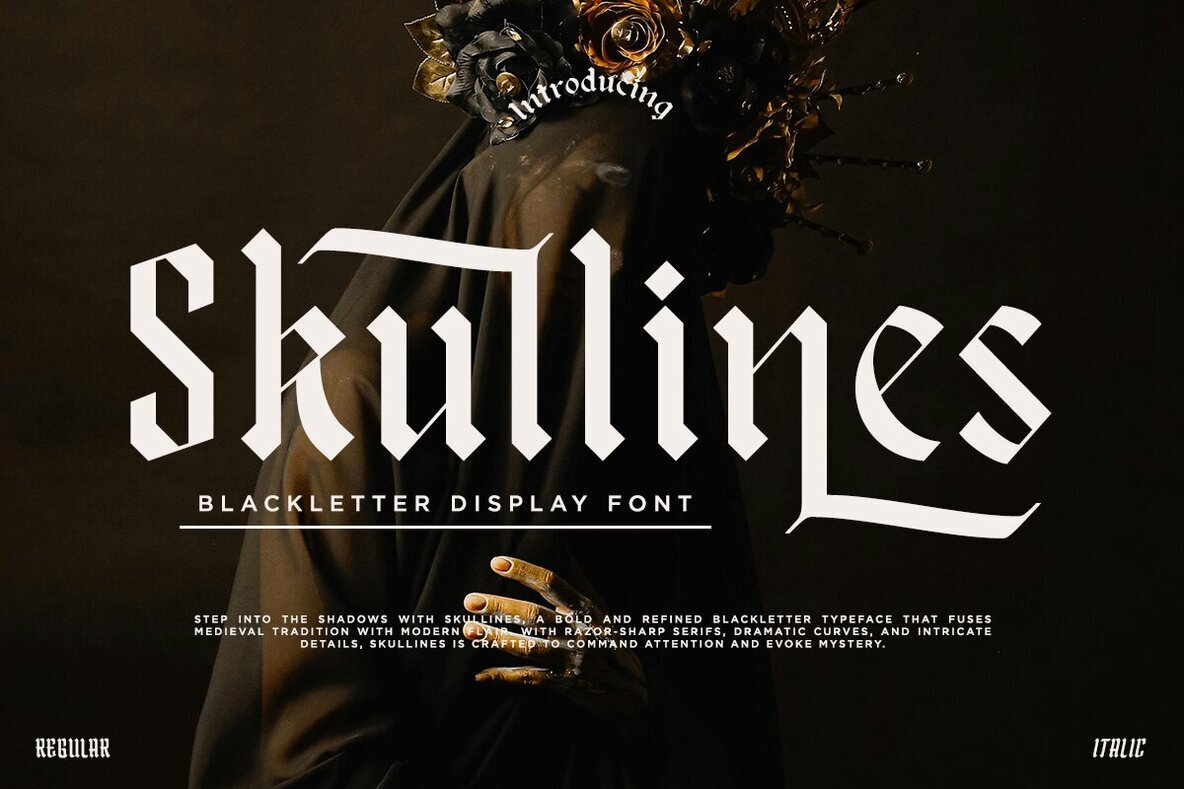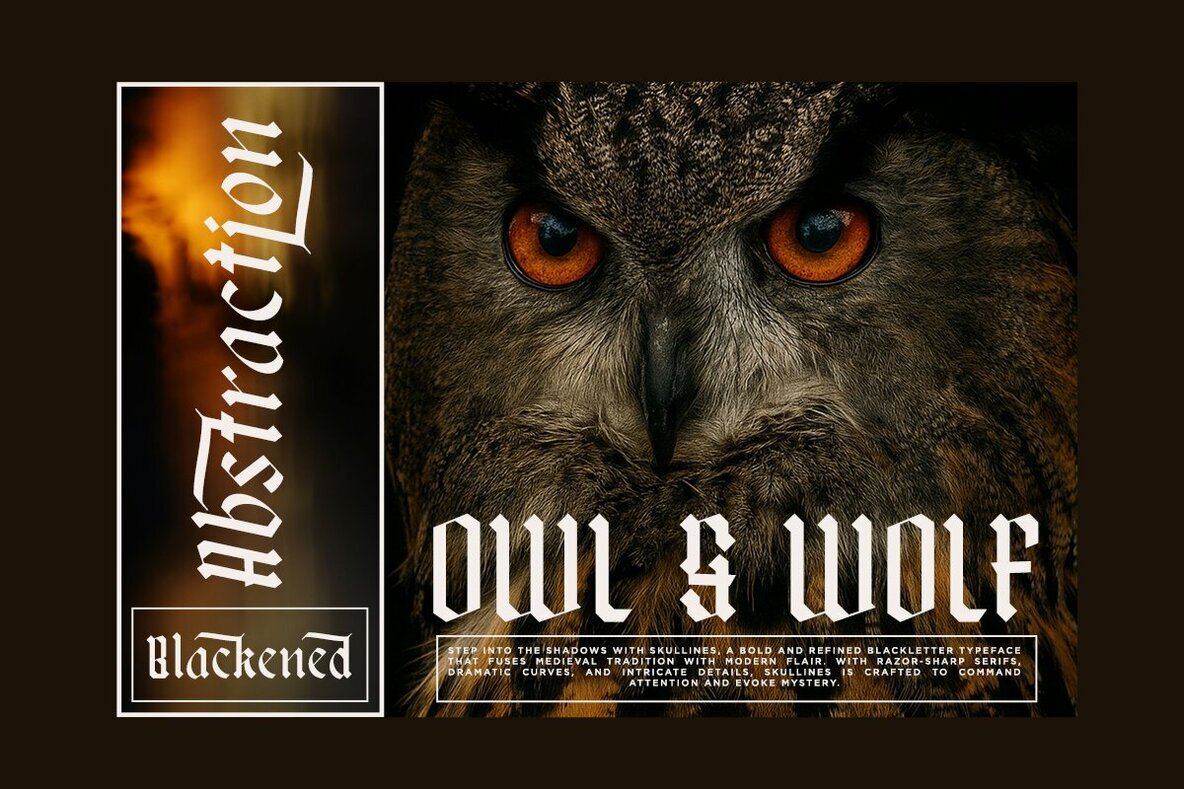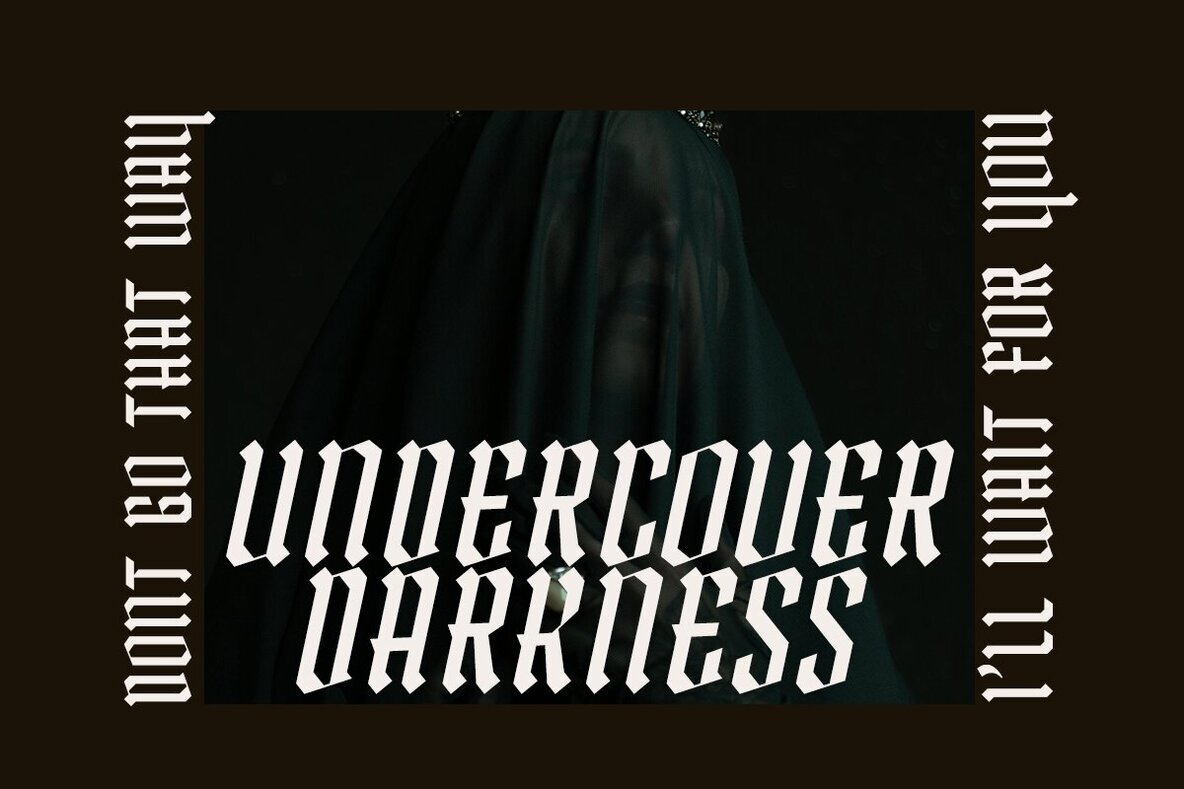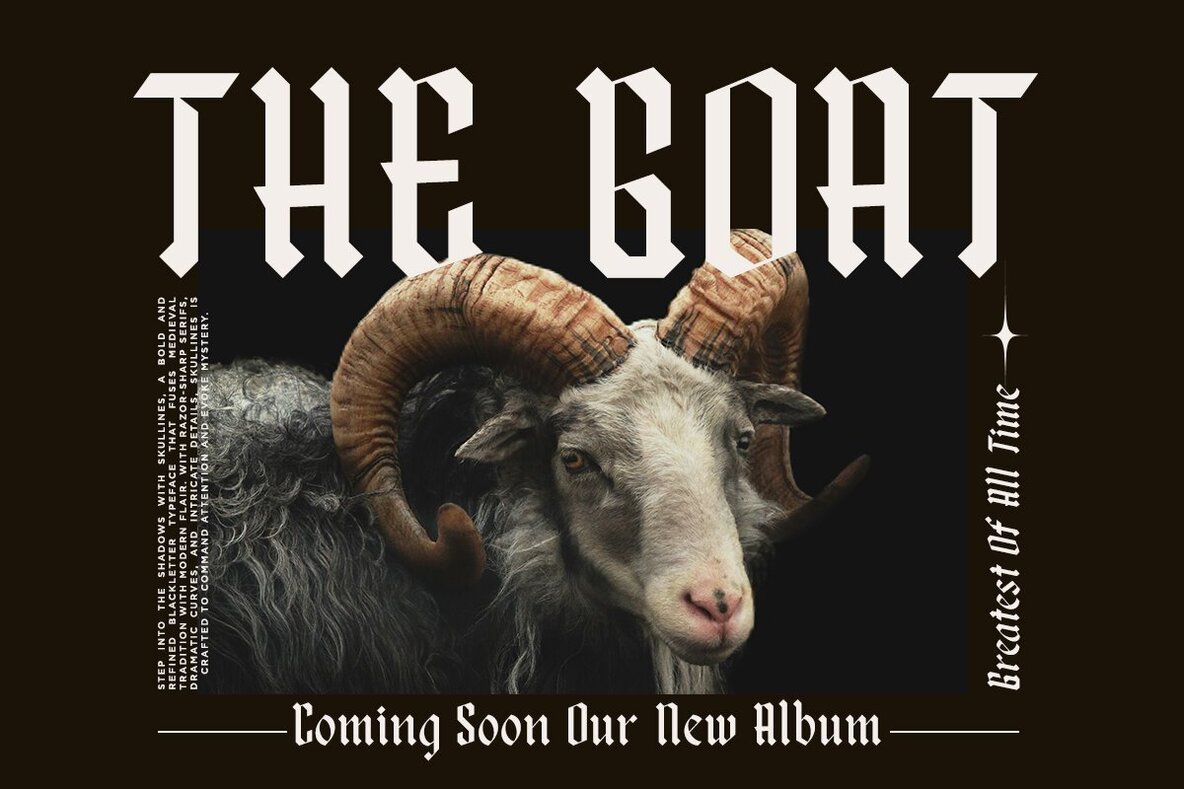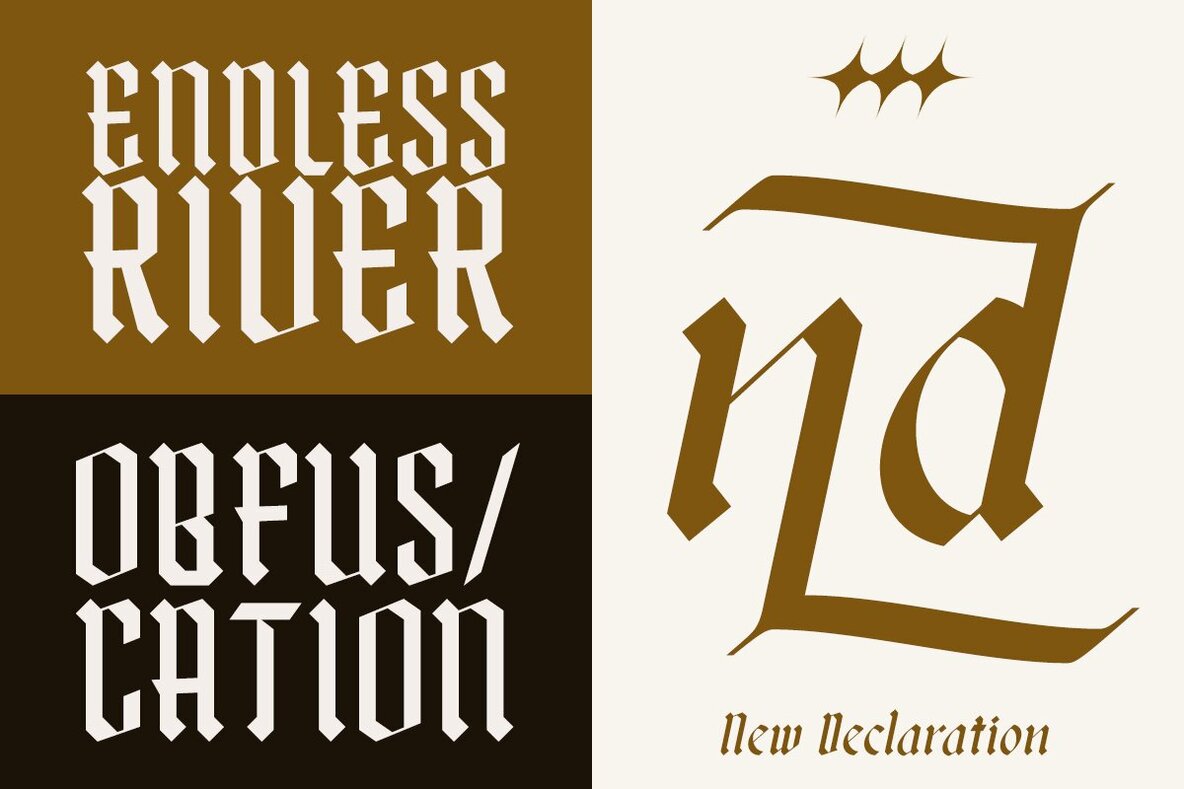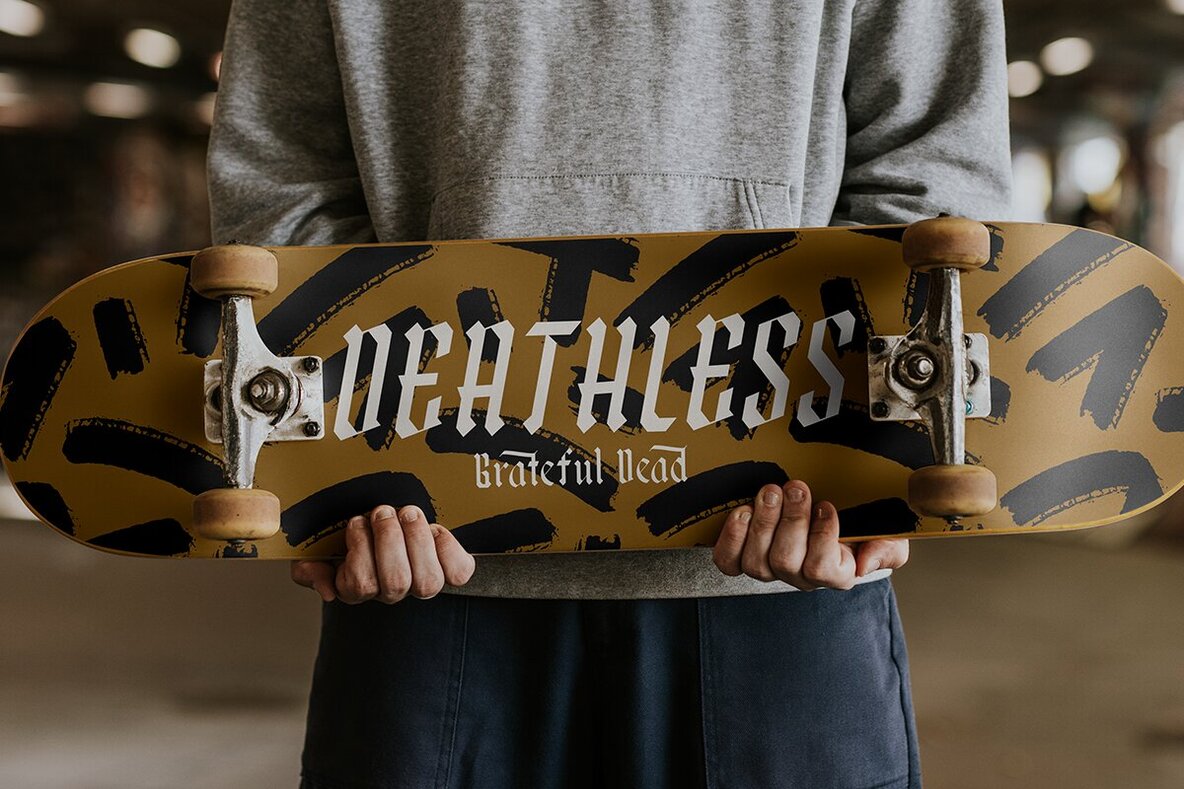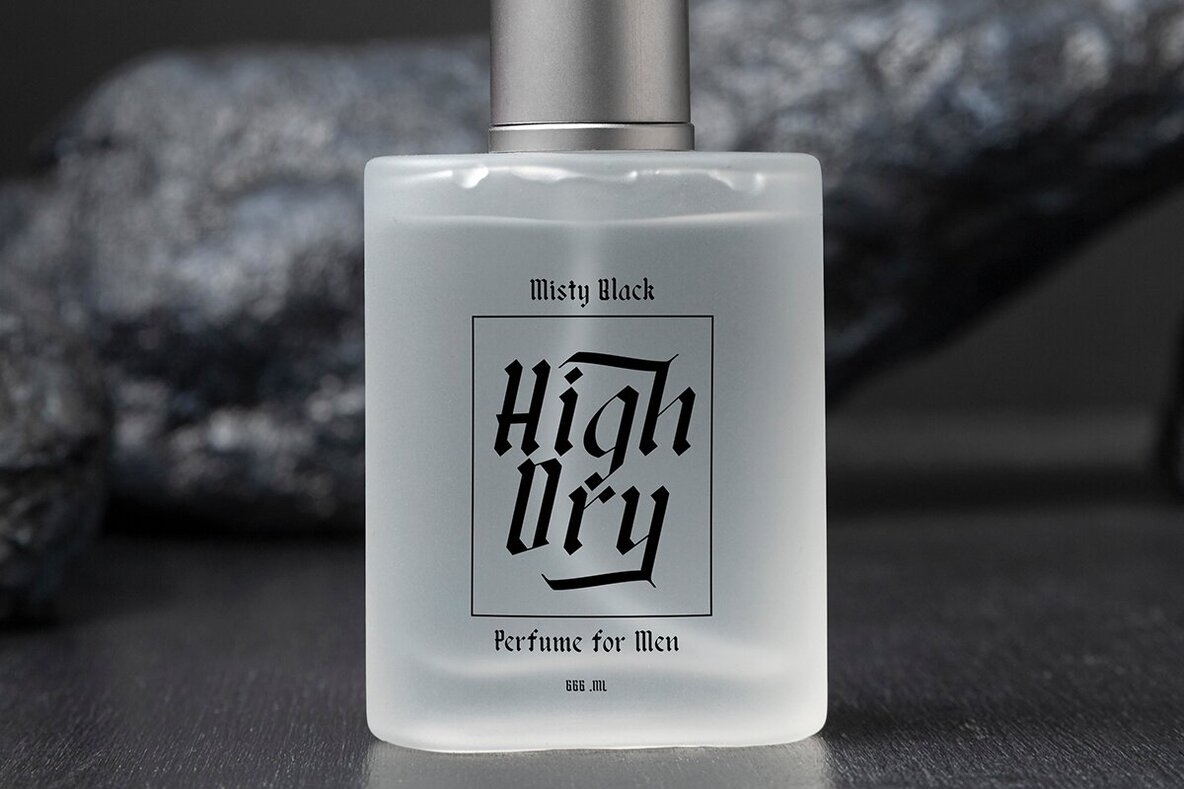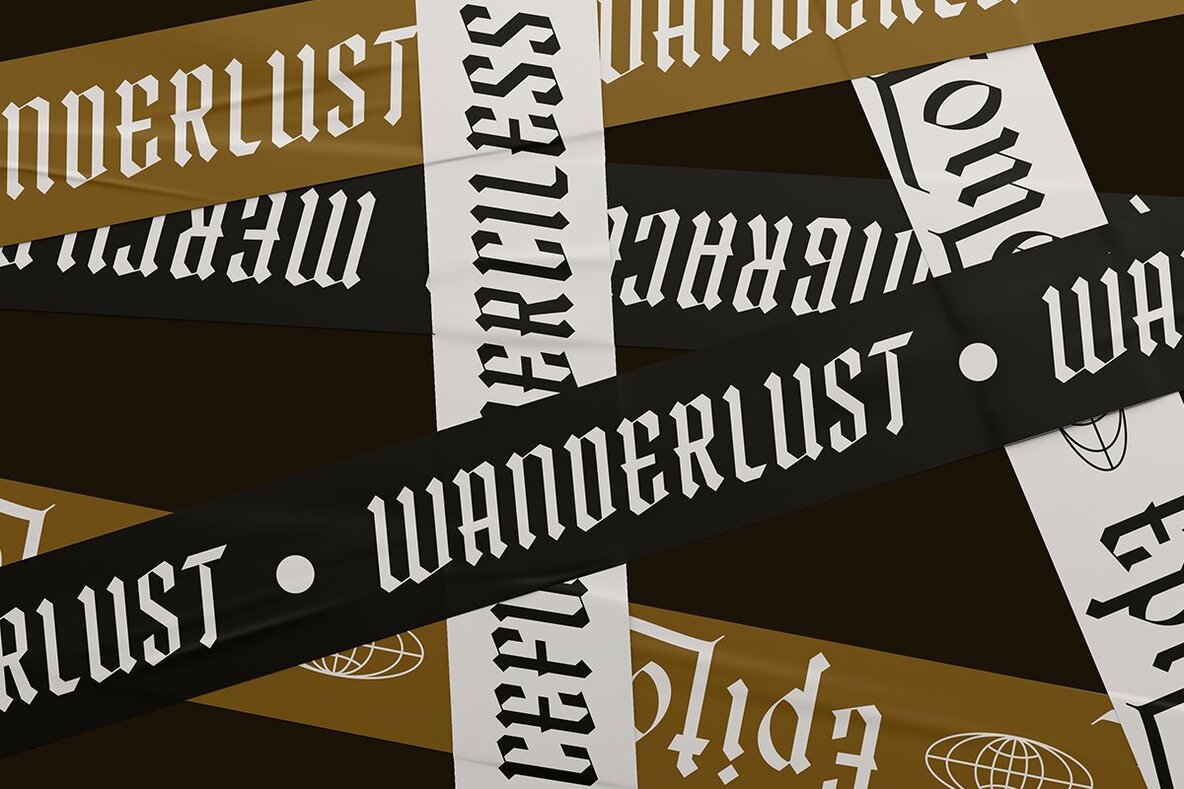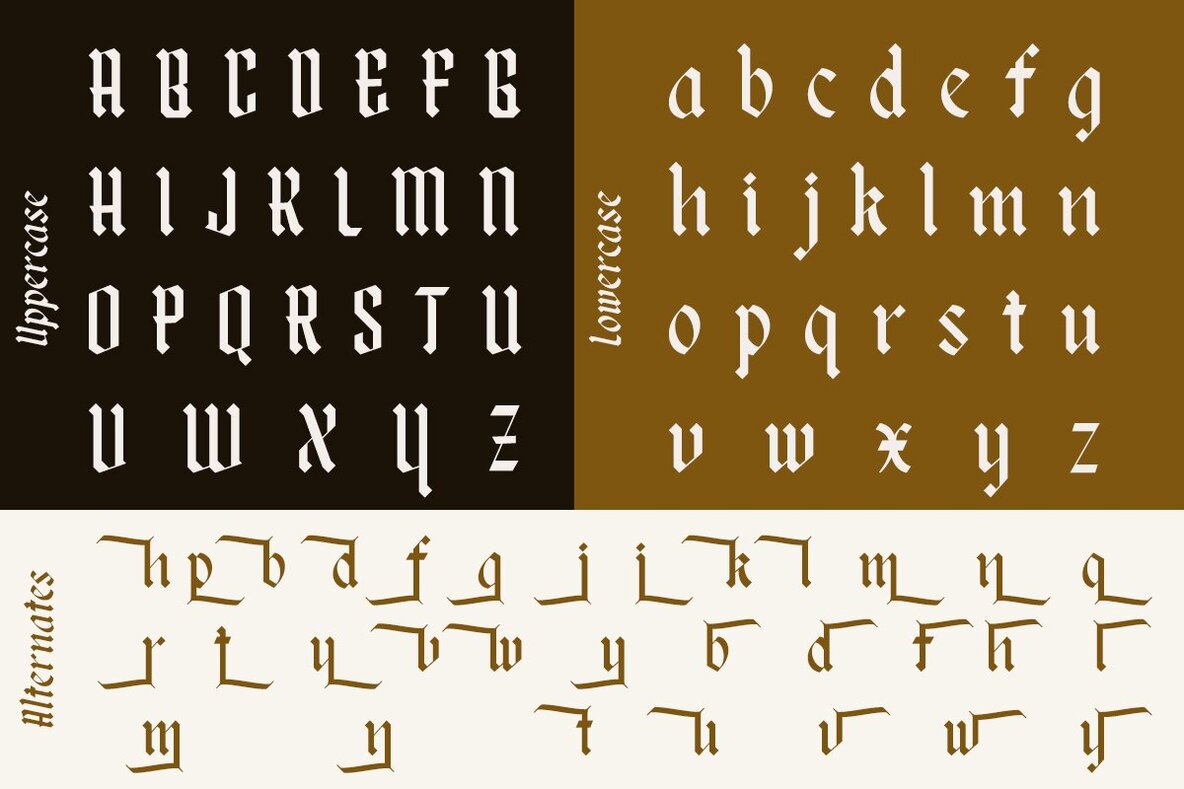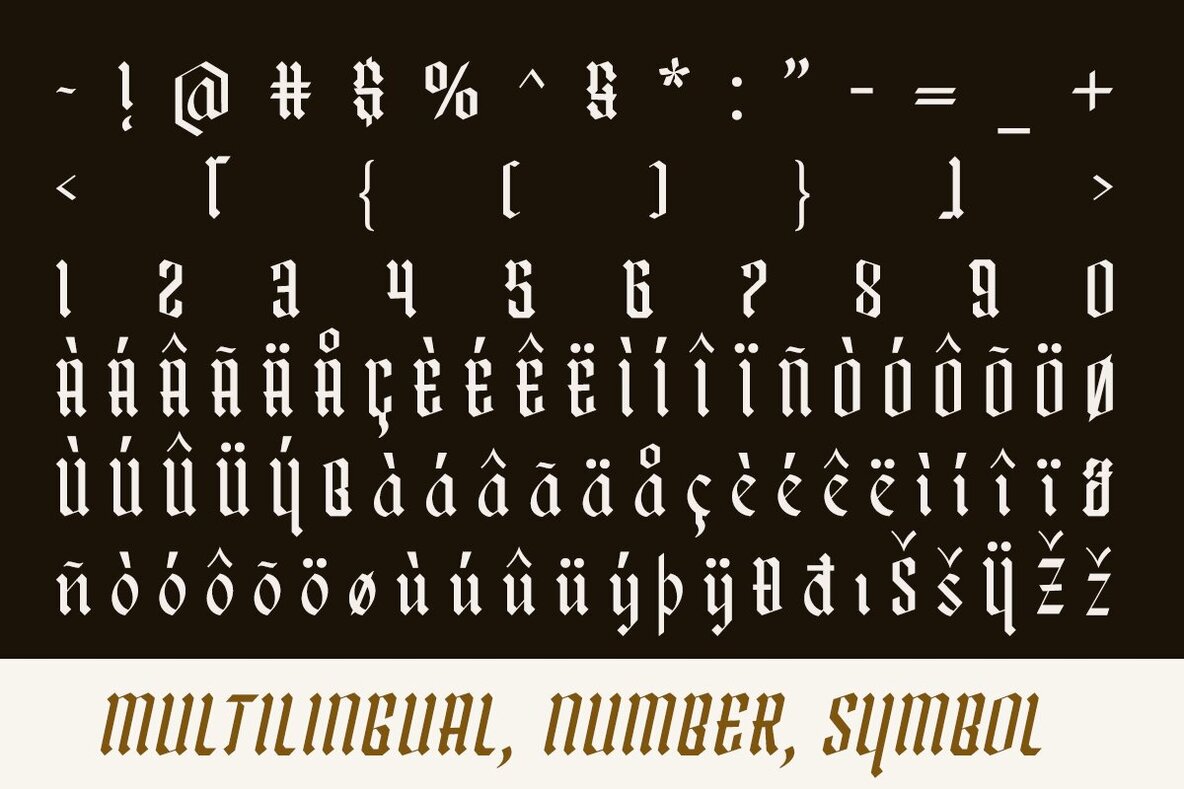
Skullines Font
Skullines is a striking blackletter display font that merges classic Gothic calligraphy with a modern edge. Its bold shapes and refined lines make it ideal for designers who appreciate both tradition and contemporary detail. Skullines stands out on brand logos, album covers, posters, and editorial headlines, offering dramatic style and distinct character for any project. This typeface offers flexibility for a variety of creative applications, from magazine titles to tattoo artwork. Carefully crafted alternates and multilingual support let you adapt Skullines for global and niche audiences alike, while regular and italic styles provide additional versatility.Skullines Blackletter Display Font